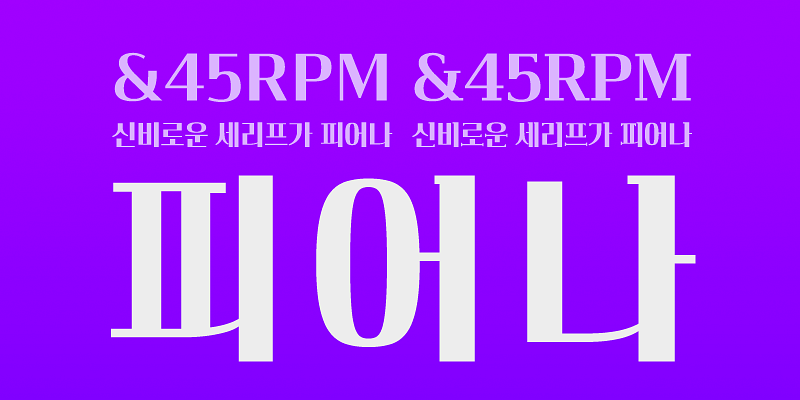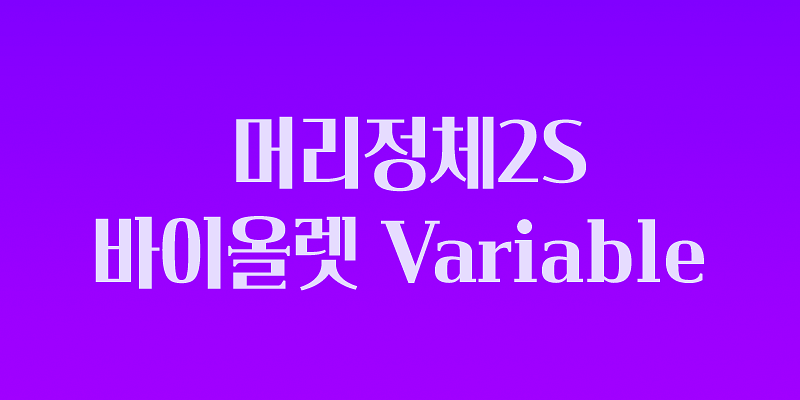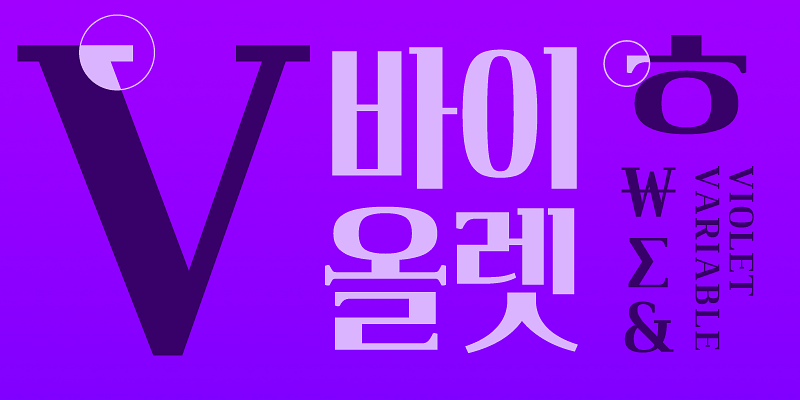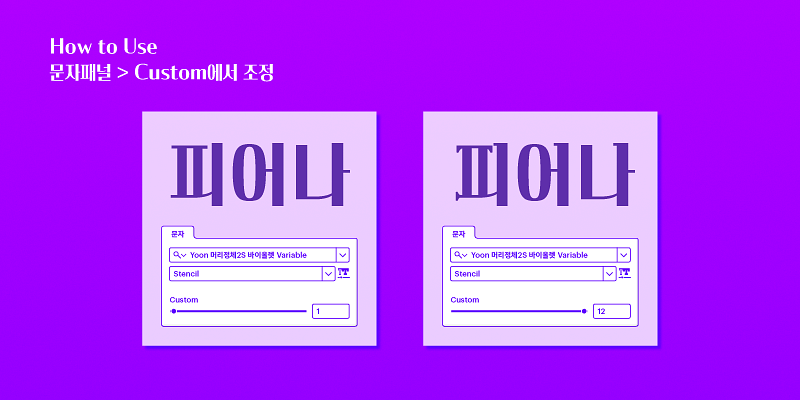
This font creatively adapts English serifs and merges them with Hangul, creating a feel that’s both old-fashioned and dreamy. It’s the perfect choice for adding a classic touch to your headlines and grabbing attention. The adjustable settings let the serifs gracefully expand around the edges of the letters, offering a unique design.